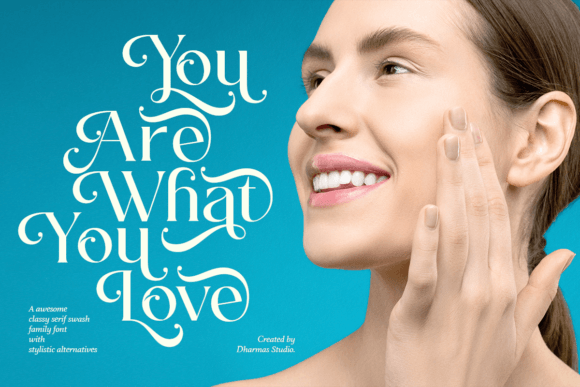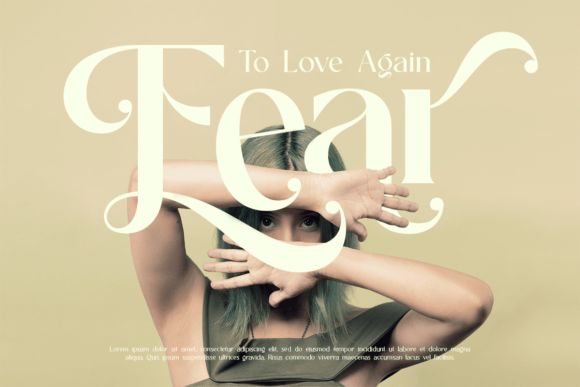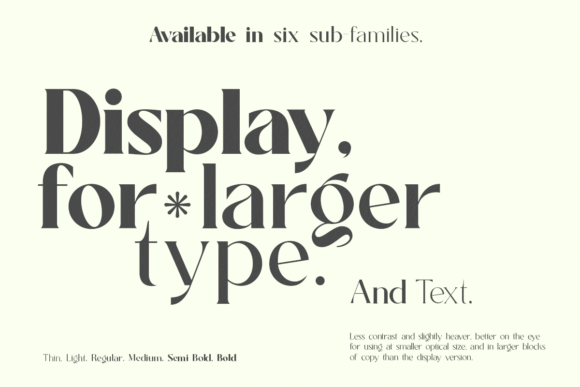
Introduction to Salitia Font
Have you ever been working on a creative project, staring at a blank page, and suddenly, the perfect font pops into your head? For designers, finding that elusive font can be the difference between a great design and a mediocre one. The moment you envision the perfect font, it’s like a spark of inspiration that sets your entire project ablaze. That’s exactly what we aimed to achieve with the Salitia Font – a modern serif family that’s about to become your new go-to design resource.
With its tightly-spaced serifs reminiscent of the 80s and 90s, the Salitia Font is a stylish comeback that’s sure to elevate your design game. Whether you’re working on a magazine text, product description, or UI design, this high-quality font is the perfect addition to your creative arsenal. And the best part? It’s available for free download, making it an accessible design resource for designers of all levels.
Key Features of Salitia Font
- Unique, modern font with a transparent background, ideal for backgrounds and overlays.
- Supports a wide range of languages, making it a versatile design resource for global projects.
- Designed with precision, ensuring crisp and clear text at high resolutions (up to 300 DPI).
- Perfect for graphic designers, digital artists, and anyone looking for a unique and high-quality font for their creative project.
Honest Review: Salitia Font
As a designer, I’m always on the lookout for high-quality design resources to enhance my creative projects. Recently, I stumbled upon the Salitia Font, and I’m excited to share my honest review with you.
- ✨ The font has a unique and modern design that’s perfect for creative projects.
- ✨ The font is highly customizable, allowing me to easily adjust the size, color, and style to suit my design needs.
- ✨ The transparent background option is a game-changer for designers who need to create visually appealing graphics.
- ⚠️ The font may not be suitable for complex typography projects, as it’s relatively simple in design.
- ⚠️ Some users may find the font’s modern style too trendy, making it less versatile for long-term design projects.
Overall, I’m impressed with the Salitia Font’s potential as a design resource. While it may have some limitations, its unique design and high-quality features make it an excellent choice for creative projects. I’d definitely recommend it to fellow designers looking for a modern and versatile font.
Salitia Font
The Salitia Font is a high-quality, free design resource ideal for creative projects. Its unique style and versatility make it a valuable addition to any design collection.
Getting the Most Out of Salitia Font
Use the Salitia Font on a transparent background to create a sleek, modern look. Experiment with different font sizes and colors to find the perfect combination for your design project.